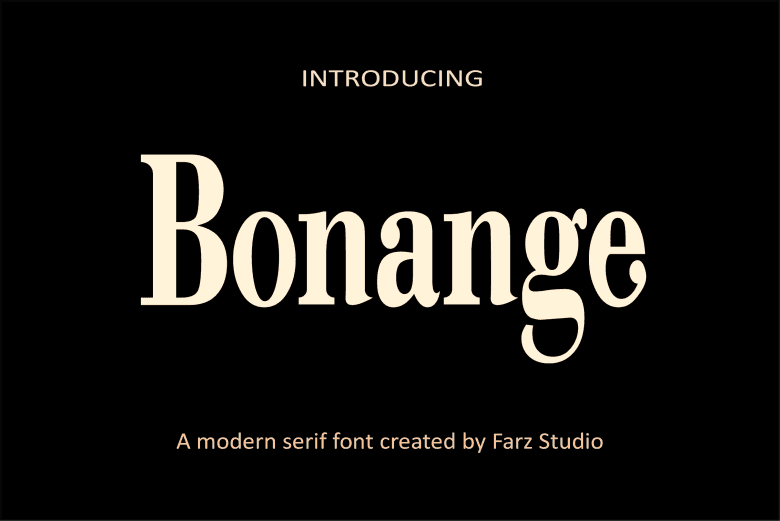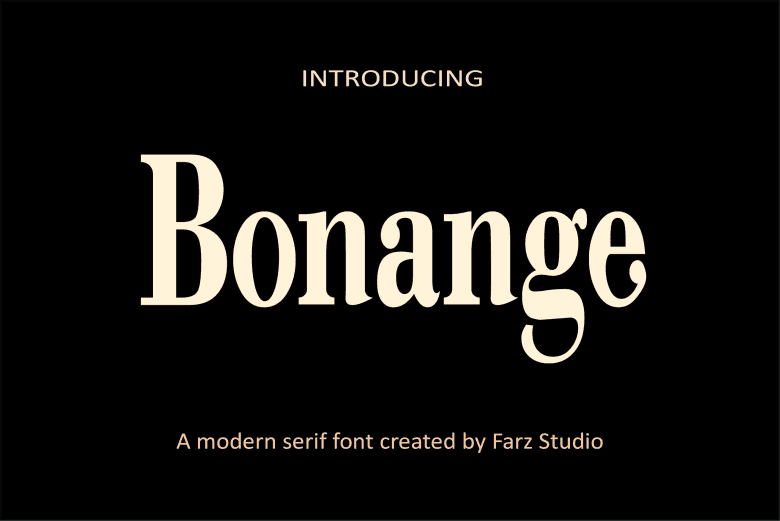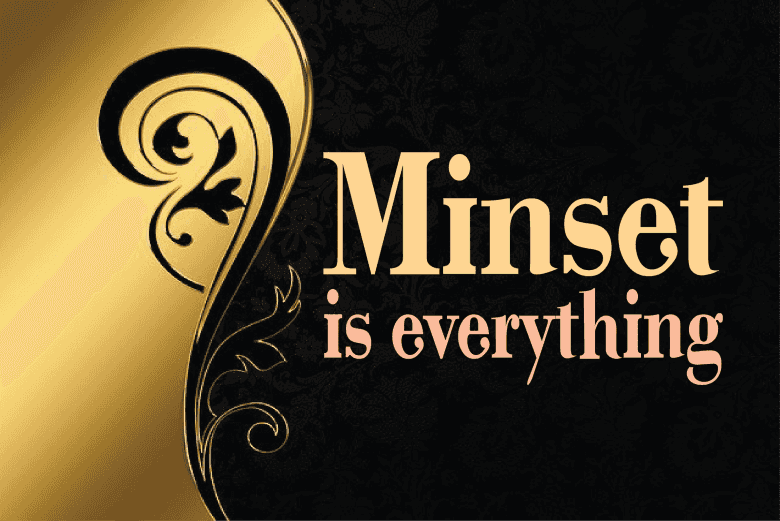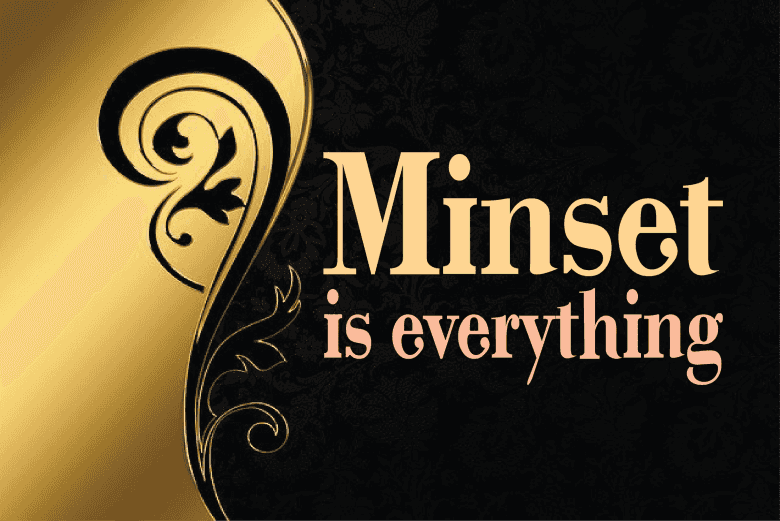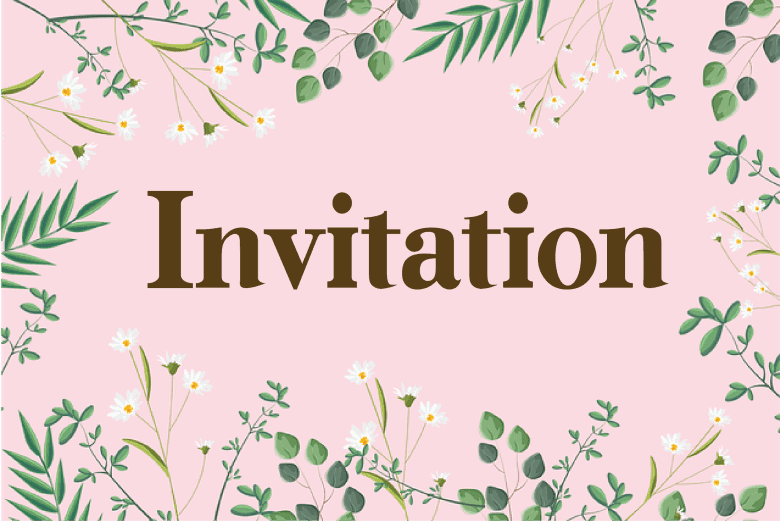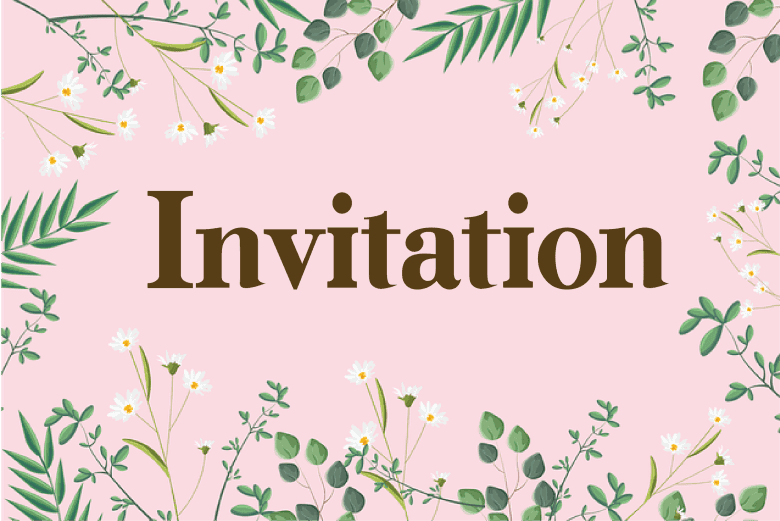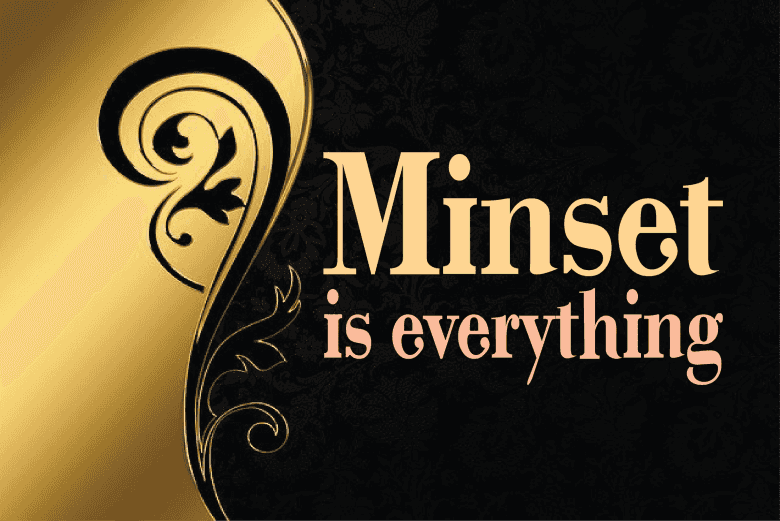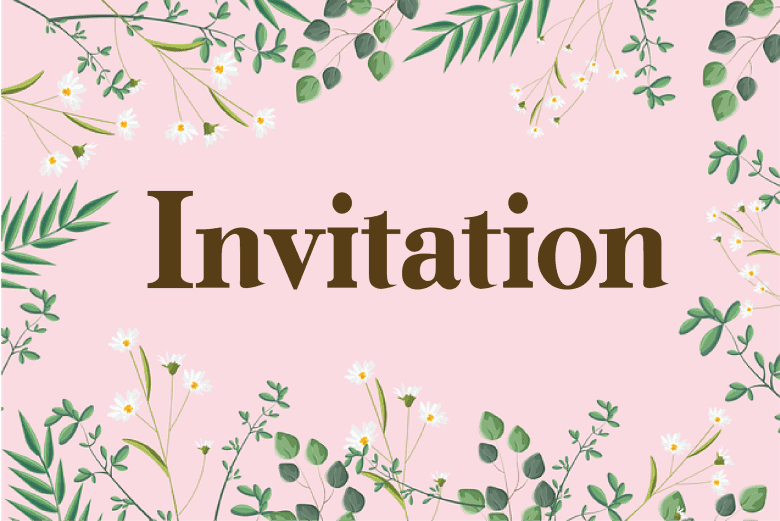
Bonange is a stylish serif font that is sure to get people’s attention. This font has uppercase numbers and punctuation and has numerous styles for each character and is multilingual! Creates some of the most beautiful designs you can imagine! It is versatile in its application!